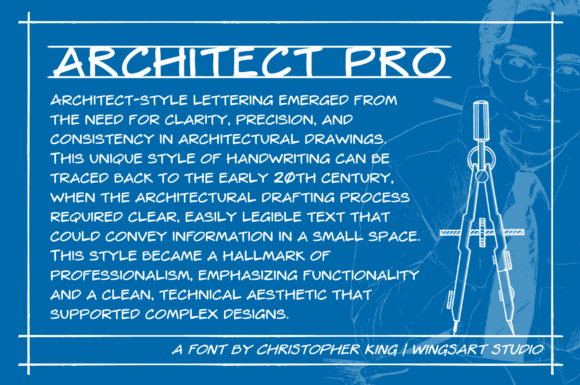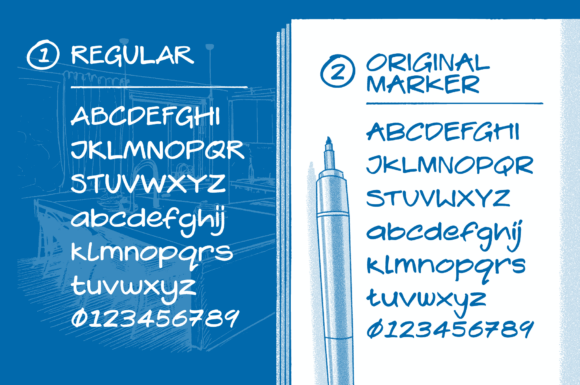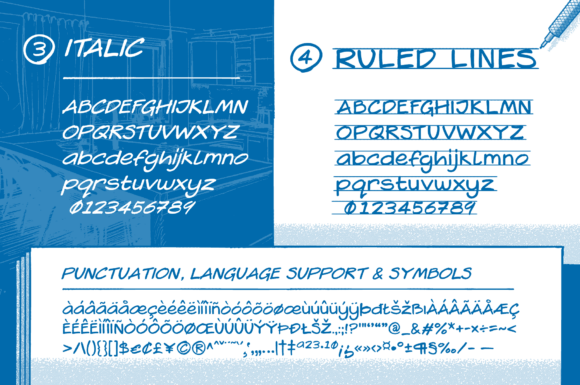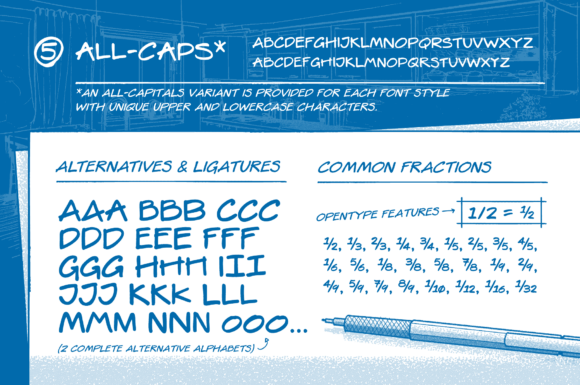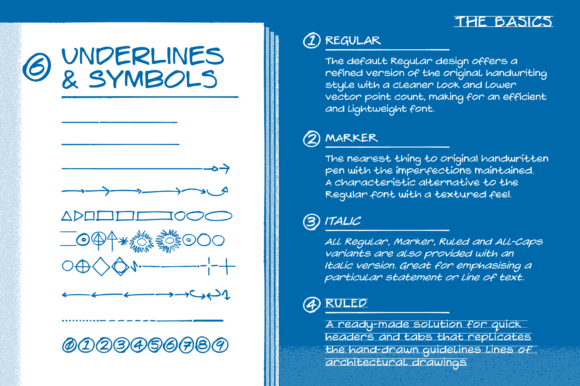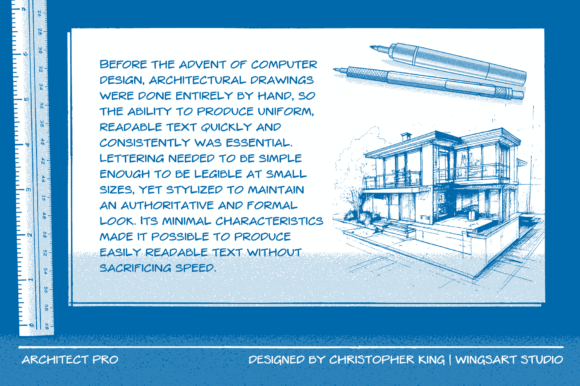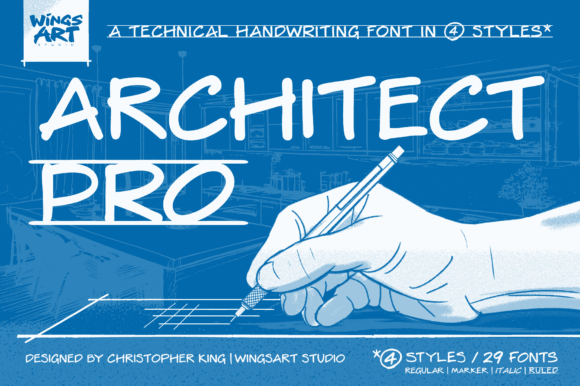
Architect Pro Font: A Timeless Classic for Professional Design
In the world of architectural design, clarity, precision, and consistency are essential elements that define a professional’s work. One crucial aspect that contributes to this professionalism is the unique style of handwriting that has been a hallmark of architectural design for centuries. This style, which emerged from the need for legible text in small spaces, has been formalized into a distinct font known as Architect Pro Font. In this article, we’ll explore the history, characteristics, and significance of Architect Pro Font, a clear, legible handwriting font that has become synonymous with professional architectural design.
The Origins of Architectural-Style Lettering
The evolution of architectural-style lettering dates back to the early 20th century when architectural drafting was a manual process. Architects and drafters needed to create clear, easily legible text that could convey complex information in a small space. This requirement led to the development of a unique handwriting style that prioritized functionality, simplicity, and a clean, technical aesthetic. The style was designed to support complex designs, ensuring that text was uniform, readable, and easily reproducible.
Characteristics of Architect Pro Font
Architect Pro Font is a testament to the traditional architectural-style lettering that has been refined over the years. Its characteristics include:
• Legibility: Architect Pro Font is designed to be clear and legible, even at small sizes, making it ideal for use in architectural drawings, plans, and designs.
• Simplicity: The font features simple, clean lines, and minimal ornamentation, ensuring that text is easy to read and understand.
• Consistency: Architect Pro Font is designed to produce uniform text, which is essential for creating a professional and cohesive look in architectural designs.
• Technical aesthetic: The font’s technical aesthetic supports complex designs, making it an ideal choice for architects, engineers, and designers.
The Significance of Architect Pro Font
Architect Pro Font has become a staple in the design industry, particularly in architectural design, due to its unique characteristics and benefits. Some of the reasons why Architect Pro Font is significant include:
• Professionalism: The font is a hallmark of professionalism, conveying a sense of expertise and attention to detail.
• Readability: Architect Pro Font ensures that text is easily readable, even in small spaces, reducing errors and misinterpretations.
• Versatility: The font can be used in a variety of design applications, from architectural drawings to presentations and marketing materials.
• Timelessness: Architect Pro Font has a timeless quality, making it a valuable asset for designers who want to create classic, enduring designs.
Using Architect Pro Font in Design
Architect Pro Font can be used in a variety of design applications, including:
• Architectural drawings: The font is ideal for use in architectural drawings, plans, and designs, where clarity and legibility are essential.
• Presentations: Architect Pro Font can be used in presentations to create a professional and cohesive look.
• Marketing materials: The font can be used in marketing materials, such as brochures, flyers, and business cards, to convey a sense of professionalism and expertise.
Architect Pro Font is a clear, legible handwriting font that has become synonymous with professional architectural design. Its unique characteristics, including legibility, simplicity, consistency, and technical aesthetic, make it an essential tool for architects, engineers, and designers. Whether used in architectural drawings, presentations, or marketing materials, Architect Pro Font is a timeless classic that conveys professionalism, expertise, and attention to detail.